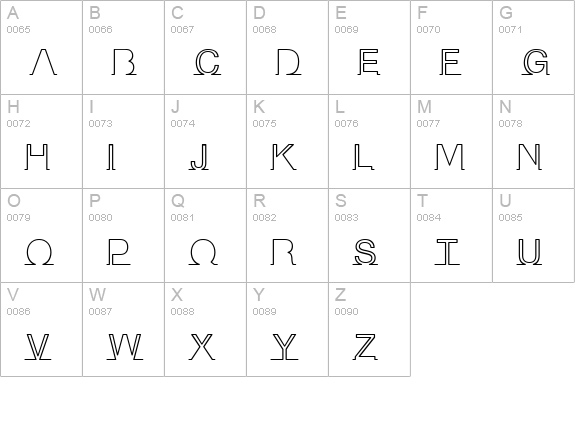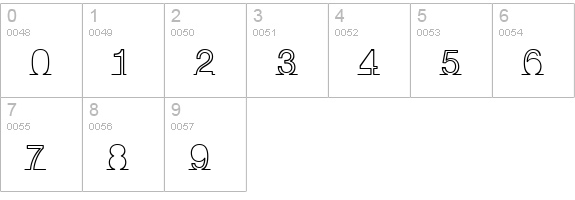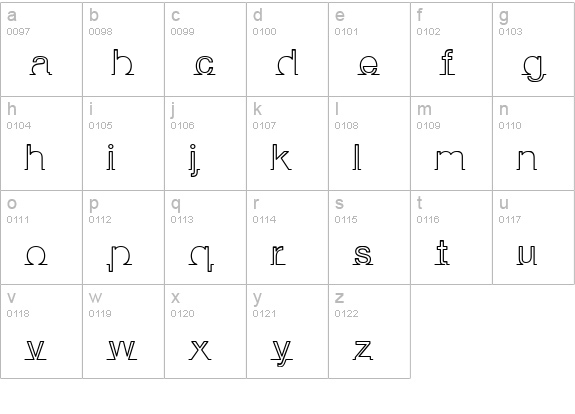
I am online with u Font Details
Introducing the mesmerizing and captivating "I am online with u" font! This unique and stylish typeface is designed to add a touch of modernity and elegance to your creative projects. With its sleek and contemporary aesthetics, "I am online with u" font is perfect for various design purposes, including branding, logo design, social media graphics, website headers, and much more. What sets "I am online with u" font apart is its versatility and adaptability. Whether you're aiming for a trendy and chic look or a clean and sophisticated vibe, this font has got you covered. Its smooth curves, well-defined lines, and eye-catching letterforms make it a perfect choice for both digital and print media. But that's not all! The best part is that "I am online with u" font is absolutely free! Yes, you read that right. You can freely download this incredible font from FontsMarket.com, a trusted source for high-quality fonts. It's a fantastic opportunity to enhance your design projects without spending a dime. So, don't miss out on this incredible offer! Get your hands on the "I am online with u" font today and elevate your designs to a whole new level. Download it now from FontsMarket.com and let your creativity soar!